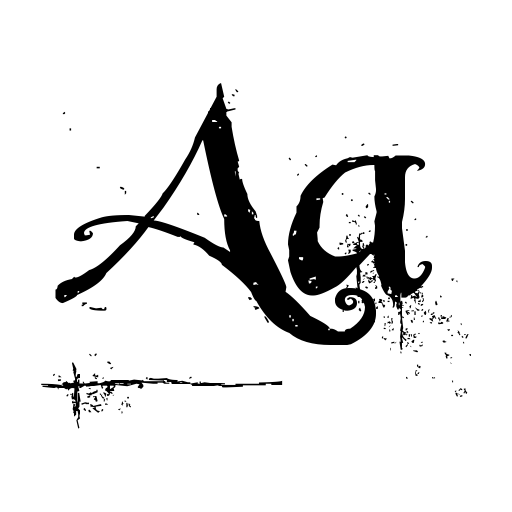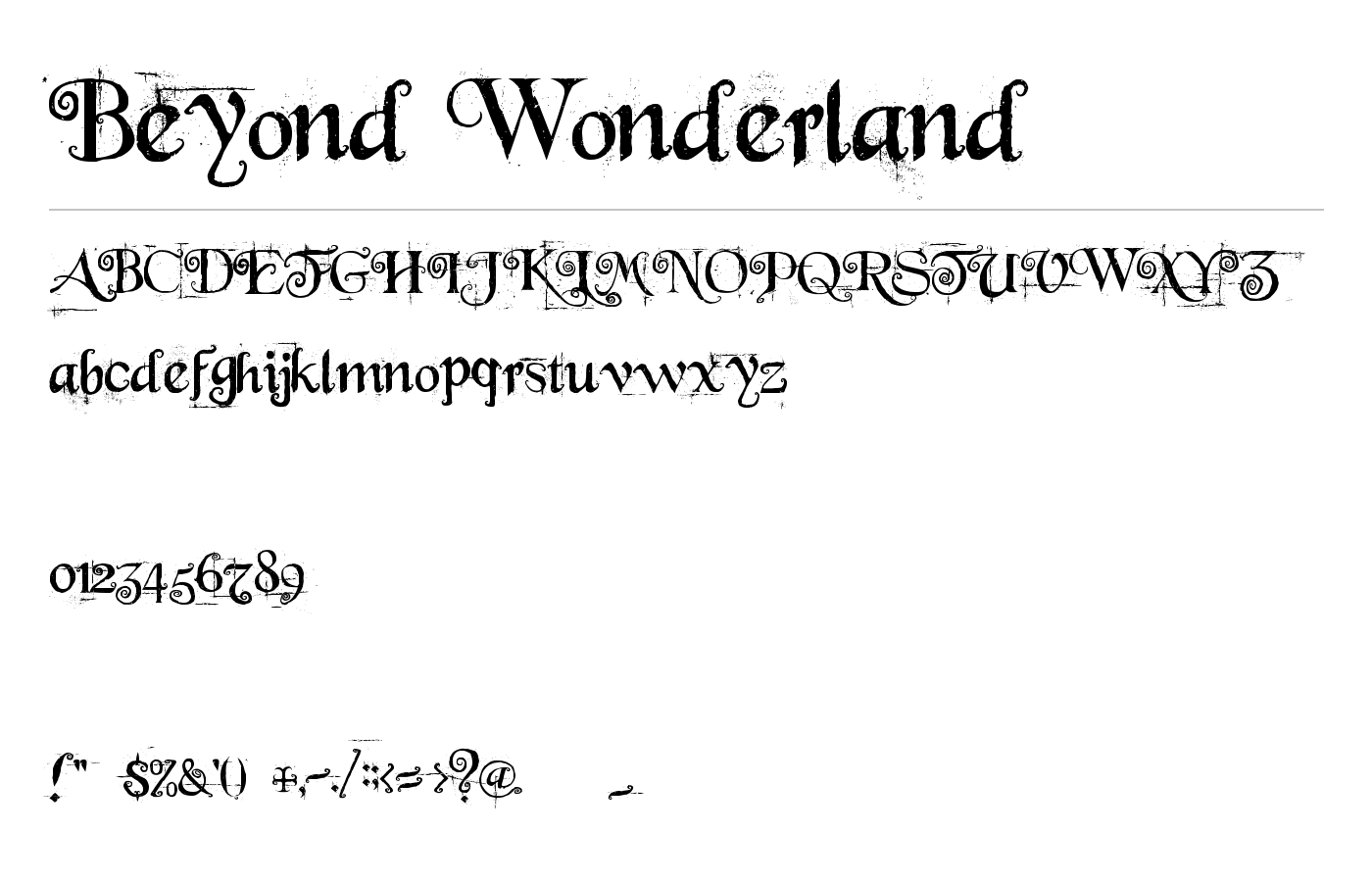
Beyond Wonderland is a decorative serif font with whimsical, ornate letterforms that evoke a magical, fairy-tale atmosphere. Its elaborate curls and flourishes, combined with a slightly distressed texture, give it a charming, vintage feel perfect for fantasy-themed projects, invitations, or playful branding. This font works best in headlines and display uses where a touch of elegance and imagination is desired.
Beyond Wonderland Font
About Beyond Wonderland Font